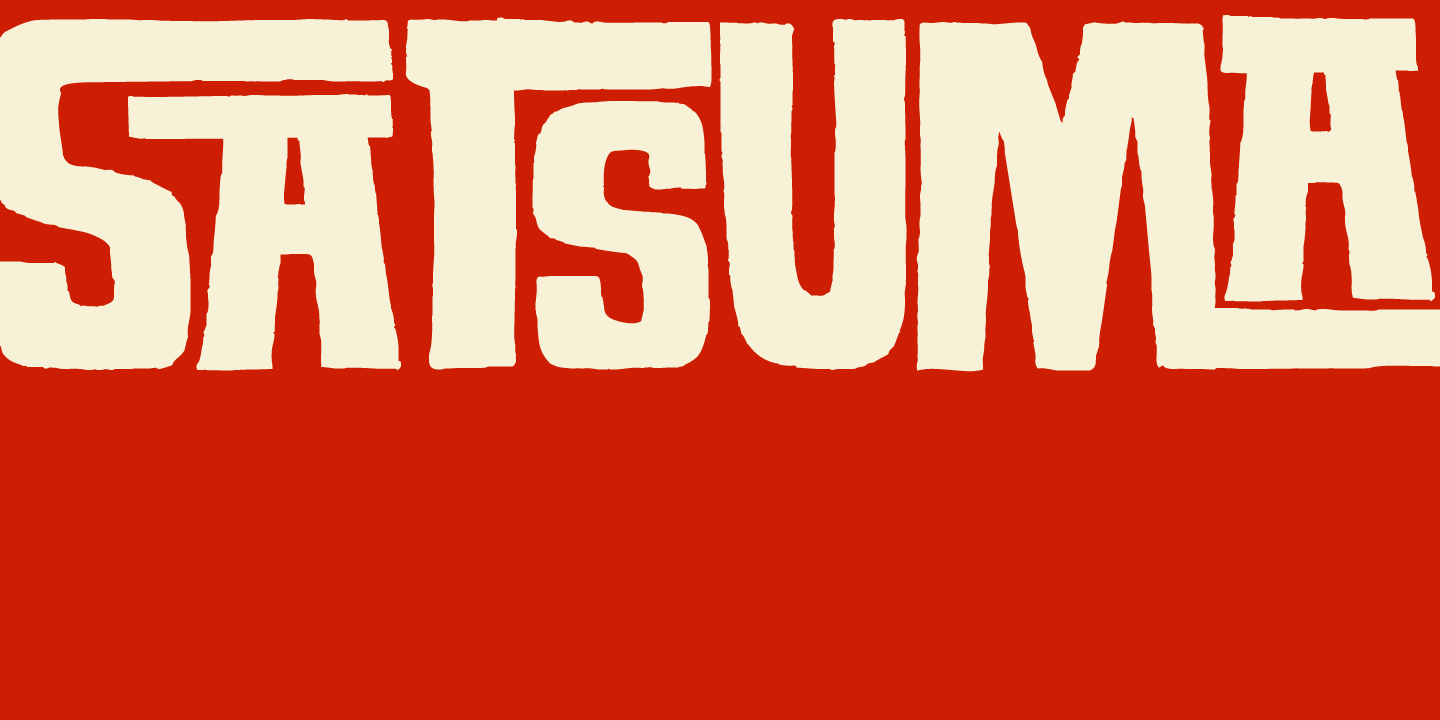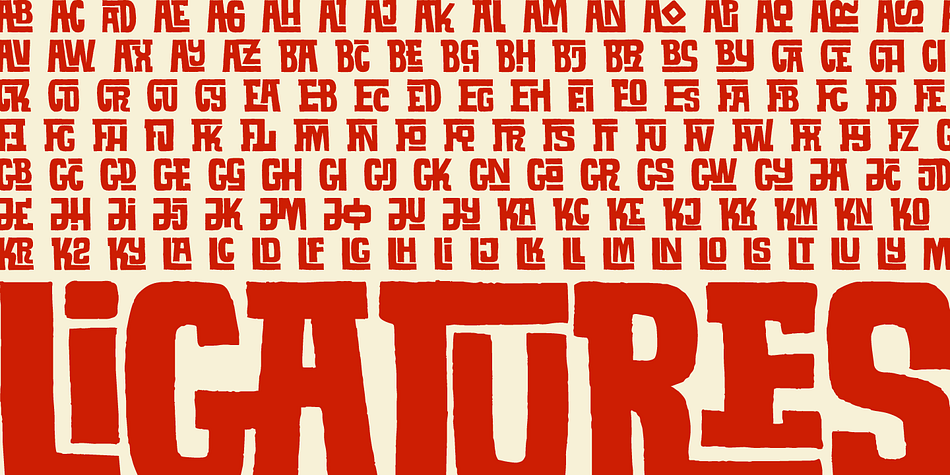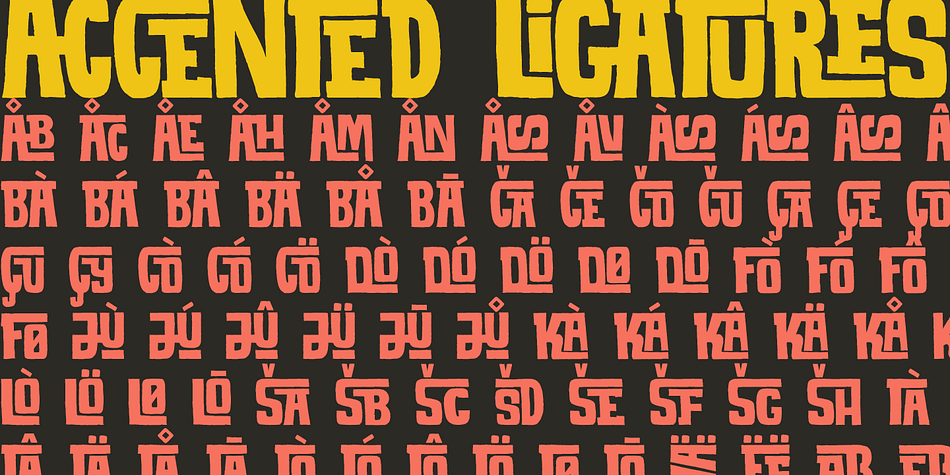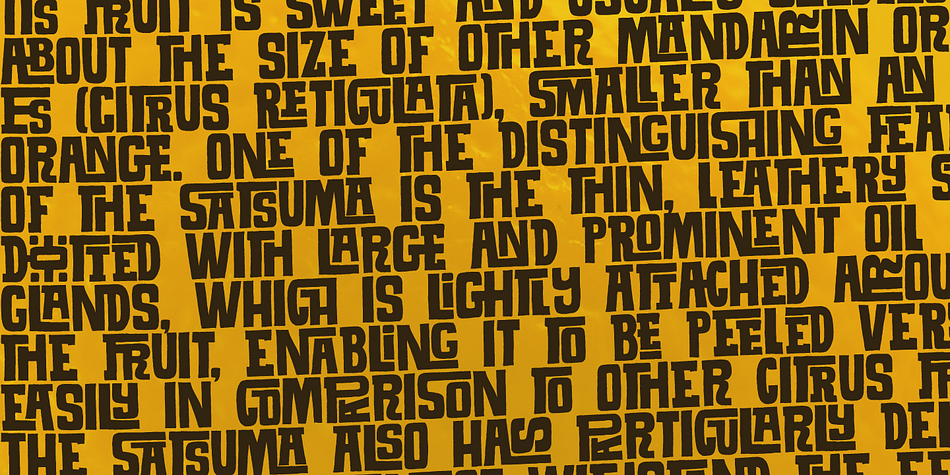
Satsuma is a display sans and kids font published by Hanoded.
Satsuma. It used to be only a Japanese orange, but now it’s a typeface as well. A rather unusual typeface. Satsuma is rough around the edges, squarish and playful. It is handmade and comes with over 400 interlocking ligatures. If that ain’t fun, I don’t know what is!
Of course, Satsuma comes with extensive language support AND accented ligatures! Due to the complexity of this font, it only comes as TTF.